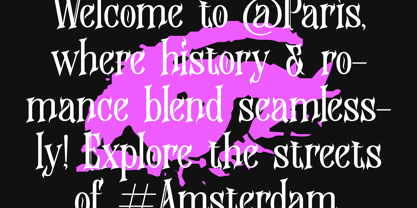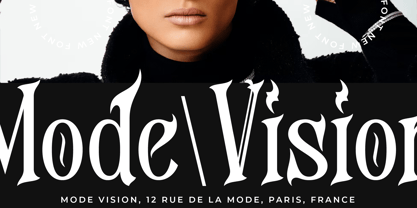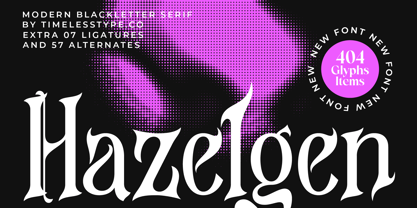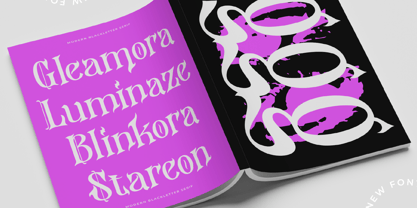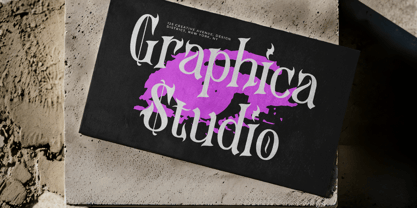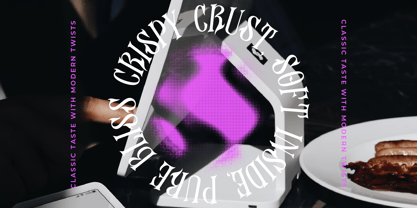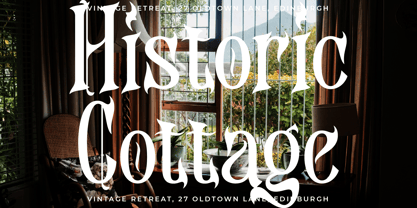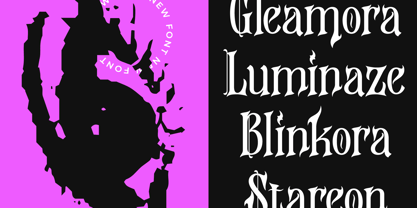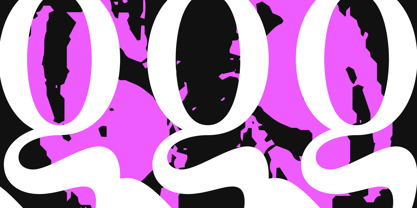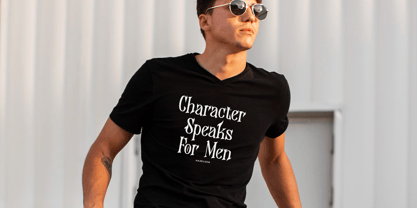
Hazelgen
The Hazelgen Font Family was designed by Heru Utama Putra and published by Timelesstype Studio. Hazelgen contains 2 styles and family package options. More about this family
Hazelgen - Modern Blackletter Serif , from Timelesstype, Suitable for any projects such as: logos, branding projects, homeware designs, product packaging, mugs, quotes, posters, shopping bags, t-shirts, book covers, name card, invitation cards, greeting cards, label, photography, watermark, special events, and all your other luxury and beautiful projects that need a Luxury Serif taste.